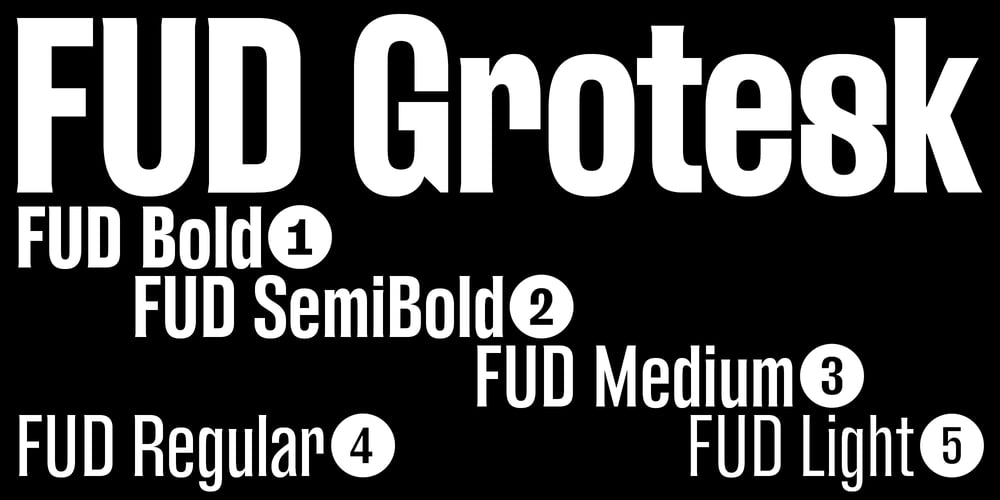
FUD Grotesk Font Family was designed by Ilya Bazhanov and published by Ilya Bazhanov. FUD Grotesk contains 5 styles and family package options. A narrow sans serif, FUD Grotesk was inspired by brutalist architecture and modernist typography. There is a subtle stroke contrast, many inktraps, and even some microserifs (look for them in the main strokes!). Note the closed bowl apertures, exaggerated in the alternate forms, which result in a dense, ornate typeset. Five weights (from Light to Bold), and a large set of discretionary ligatures.